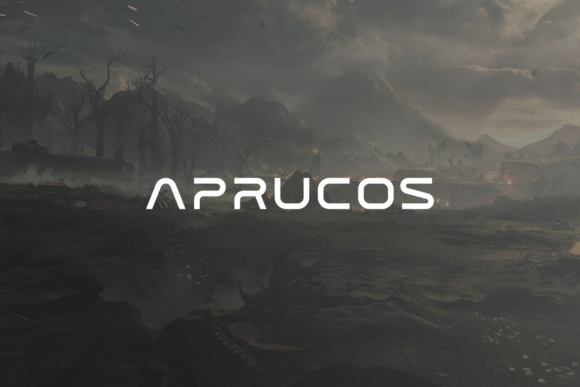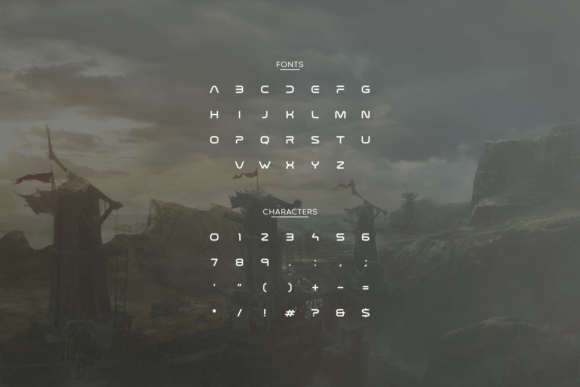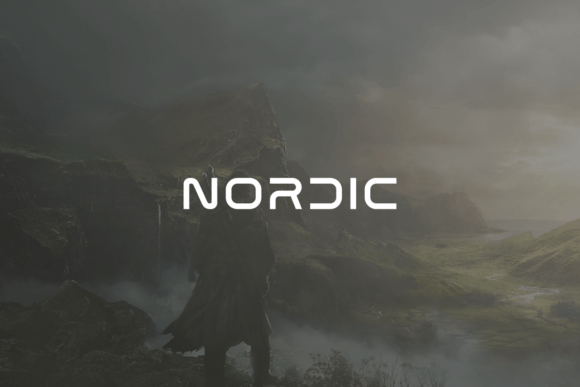
Introduction to Cropar Font
Have you ever stared at a blank canvas, trying to come up with the perfect design for a client’s project, only to be struck by a burst of creativity when you stumble upon the right font? That’s exactly what happened when designers discovered the Cropar Font. This high-quality display font is a game-changer for any creative project, offering a modern and elegant look that’s sure to make a lasting impression.
| 👤 Author | Letterna |
As a valuable resource for designers, Cropar Font is perfect for adding a touch of sophistication to branding and logo designs. Its smooth angular shape and clean lines make it an excellent choice for projects that require a professional and polished look. Plus, with a transparent background, designers can easily customize the font to fit their project’s needs.
Key Features of Cropar Font
- Unique characteristics include a modern, clean aesthetic and precise typography
- Perfect for designers and artists working on a wide range of creative projects
Honest Review: Cropar Font
As a designer, I’m always on the lookout for high-quality design resources to enhance my creative projects. Recently, I came across the Cropar Font, and I’m excited to share my honest review.
- Unique and stylish design: The Cropar Font has a distinctive look that can add a touch of sophistication to any project.
- High-quality vectors: The font files are crisp and clean, making them perfect for print and digital designs.
- Transparent background: This feature allows for easy composition and blending with other design elements.
- Limited font styles: While the Cropar Font is stylish, it’s limited to a single font style, which may not be suitable for all design projects.
- No italic or bold options: Unfortunately, the font doesn’t offer italic or bold versions, which can limit its versatility.
Overall, I’m impressed with the Cropar Font’s unique design and high-quality vectors. While it has some limitations, it’s a great addition to any designer’s toolkit, especially for creative projects that require a stylish and modern touch. I’d definitely recommend it for free design resources, and I’m looking forward to using it in my next project!
Common Use Cases for Cropar Font
The Cropar Font is ideal for various design projects, including:
- Logos
- Brochures
Does Cropar Font support transparent backgrounds?
Yes, Cropar Font supports transparent backgrounds, making it perfect for creating visually appealing designs with a clear and seamless look. This feature is especially useful for designers working on digital projects, such as social media graphics, web design, and video editing.